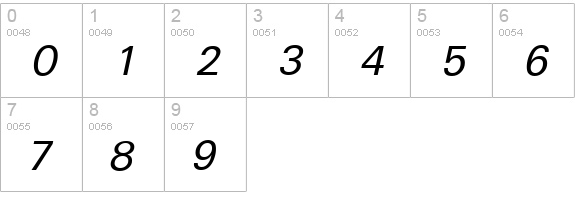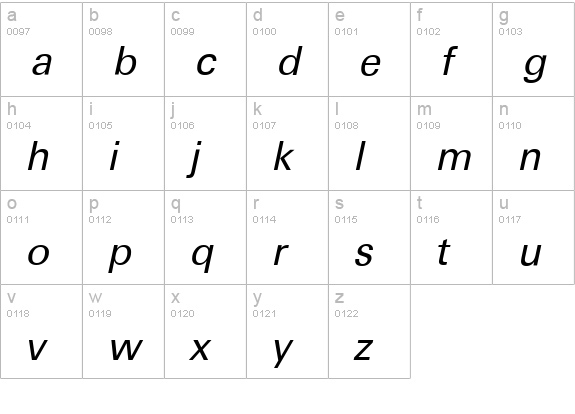
UltimateSerial-Italic is a distinctive, italic variant in the UltimateSerial typeface family \xE2\x80\x94 well suited to design and typography projects.
Introducing UltimateSerial-Italic font, a sleek and sophisticated typeface that exudes elegance and modernity. With its stylish italic design, this font is perfect for adding a touch of class to any project. The clean lines and smooth curves of UltimateSerial-Italic make it ideal for a wide range of applications, from branding to editorial design. What's even better is that UltimateSerial-Italic is available for free download at FontsMarket.com. This means you can easily access this high-quality font without any cost, making it a valuable addition to your font collection. Don't miss out on the opportunity to enhance your design projects with the timeless appeal of UltimateSerial-Italic. Download it today and elevate your designs to the next level!